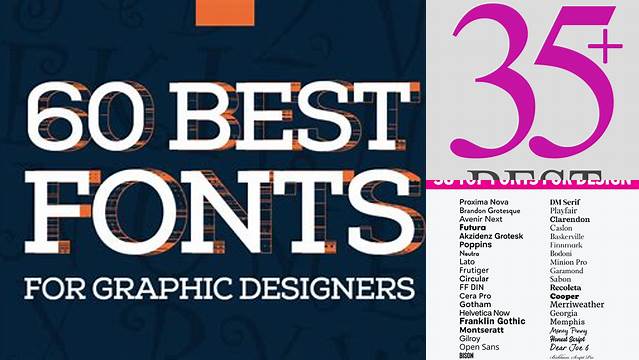
Best Fonts For Graphic Design: Free PDF Downloads
Finding the perfect font can make or break a design project. Luckily, there are tons of amazing fonts out there that you can download for free in PDF format. Let's dive into some of the best options for graphic design, covering various styles and uses. Whether you're a seasoned designer or just starting, this guide will help you find the perfect typeface to elevate your work. So, guys, let's get started and explore the world of free fonts!
1. Top Free Fonts for Graphic Design in 2024
Choosing the top free fonts for graphic design in 2024 involves considering current trends, versatility, and readability. Designers are always on the lookout for fonts that can make their projects stand out, and the good news is that there are plenty of excellent options available without spending a dime. Key considerations include the font's ability to work well in various contexts, from web design to print materials. A strong font should be legible in both headlines and body text, and it should also have a visual appeal that aligns with the project's overall aesthetic. In 2024, we see a mix of classic fonts that have stood the test of time and newer, more experimental typefaces gaining popularity. These fonts often include variable fonts that allow for dynamic adjustments in weight and width, providing greater flexibility for designers. Additionally, many designers are opting for fonts that support multiple languages, ensuring their designs can reach a global audience. The best free fonts for graphic design are those that not only look good but also enhance the user experience by being easily readable and visually engaging. So, if you're looking to elevate your designs this year, exploring these top free fonts is a great place to start. Remember, the right font can transform a good design into a great one, making your work more impactful and memorable.
2. Best Sans-Serif Fonts for Free
When it comes to graphic design, sans-serif fonts are a staple. Their clean, modern lines make them incredibly versatile and perfect for a wide range of projects. Finding the best sans-serif fonts for free can be a game-changer, especially if you're working on a budget. These fonts are known for their readability and are often used in body text, headlines, and UI design. One of the key advantages of sans-serif fonts is their ability to convey a sense of clarity and simplicity. This makes them ideal for projects where the message needs to be communicated quickly and efficiently. In the digital realm, sans-serif fonts shine on screens, offering excellent legibility even at smaller sizes. Many free sans-serif fonts come with a variety of weights and styles, giving designers the flexibility to create visually dynamic layouts. From the classic Helvetica alternatives to more contemporary designs, the options are plentiful. Exploring these free resources can lead to the discovery of unique and professional-looking fonts that can elevate any design project. So, if you're aiming for a clean, modern look, delving into the world of free sans-serif fonts is definitely worth your time. Remember, a well-chosen sans-serif font can bring a sense of sophistication and ease to your designs, making them more engaging and effective.
3. Popular Serif Fonts You Can Download for Free
Serif fonts, with their classic and elegant letterforms, bring a touch of tradition and sophistication to graphic design projects. If you're on the hunt for popular serif fonts you can download for free, you're in luck! There are numerous high-quality options available that can add a timeless feel to your work. Serif fonts are characterized by the small strokes or “serifs” at the end of each character, which can enhance readability, especially in print. These fonts are often used in books, newspapers, and magazines, but they also work wonderfully in branding and logo design. The key to choosing the right serif font is to consider the tone and message of your project. Some serif fonts have a more formal and traditional feel, while others offer a modern twist. Exploring the vast selection of free serif fonts allows designers to find the perfect match for their creative vision. Many free serif fonts come with multiple weights and styles, providing versatility for various design needs. From classic options like Times New Roman alternatives to more unique and decorative serifs, there's something for every project. So, if you're looking to infuse your designs with a touch of elegance and readability, diving into the world of free serif fonts is a fantastic idea. A well-chosen serif font can create a lasting impression, making your designs both beautiful and functional.
4. Script Fonts Available for Free
Script fonts add a personal and elegant touch to any design, mimicking the fluidity of handwriting. Finding the best script fonts available for free can bring a unique flair to your projects without breaking the bank. These fonts are perfect for invitations, greeting cards, logos, and any design where you want to convey a sense of warmth and personality. The variety of script fonts is vast, ranging from formal and calligraphic styles to more casual and playful options. The key to using script fonts effectively is to ensure they are legible and complement the overall design. Overusing script fonts can make a design look cluttered, so it's best to use them sparingly for headings or accents. When selecting a free script font, it’s essential to consider its readability and the mood it evokes. A formal script might be ideal for wedding invitations, while a more whimsical script could be perfect for a children's book. Many free script fonts come with decorative flourishes and swashes, adding to their unique charm. Exploring the diverse range of free script fonts can help designers find the perfect typeface to convey the desired emotion and style. So, if you’re looking to add a touch of elegance or personality to your designs, script fonts are a fantastic choice. Remember, the right script font can transform a design, making it feel more personal and inviting.
5. Display Fonts You Can Get Without Paying
Display fonts are designed to grab attention and make a statement. They are often used for headlines, posters, and branding materials where visual impact is crucial. Finding display fonts you can get without paying opens up a world of creative possibilities for designers on a budget. These fonts are typically more decorative and unique than body text fonts, making them perfect for adding personality and flair to your projects. The key to using display fonts effectively is to ensure they complement the overall design and message. A bold, eye-catching display font can draw readers in, but it's important to balance its impact with readability and clarity. Many free display fonts offer a wide range of styles, from vintage and retro designs to modern and futuristic typefaces. This variety allows designers to find the perfect font to match the tone and aesthetic of their project. When selecting a free display font, it’s essential to consider its legibility and how well it works with other design elements. A well-chosen display font can transform a design, making it more memorable and impactful. Exploring the vast selection of free display fonts can help designers discover hidden gems that add a unique touch to their work. So, if you're looking to make a bold statement, diving into the world of free display fonts is an excellent choice. Remember, a striking display font can be the key to creating visually compelling designs that capture attention.
6. Modern Fonts Available for Free Download
Modern fonts are characterized by their clean lines, geometric shapes, and contemporary feel. They are perfect for designs that aim to convey a sense of innovation and sophistication. Finding modern fonts available for free download is a fantastic way to keep your designs fresh and up-to-date without spending any money. These fonts often feature minimalist designs, making them highly versatile for a variety of projects, from web design to print materials. The key to using modern fonts effectively is to ensure they align with the overall aesthetic of your project. They work particularly well in designs that emphasize simplicity and clarity. Many free modern fonts offer a range of weights and styles, giving designers the flexibility to create visually dynamic layouts. From sleek sans-serifs to elegant serifs with a modern twist, there’s a diverse selection to choose from. When selecting a free modern font, it’s essential to consider its readability and how well it complements other design elements. A well-chosen modern font can elevate a design, making it feel more contemporary and polished. Exploring the vast array of free modern fonts can help designers find the perfect typeface to express their creative vision. So, if you're looking to infuse your designs with a modern edge, diving into the world of free modern fonts is an excellent choice. Remember, a stylish modern font can make your designs stand out and convey a sense of innovation.
7. Classic Fonts You Can Download in PDF Format
Classic fonts have stood the test of time, maintaining their relevance and appeal across decades. These fonts are known for their timeless elegance and readability, making them a staple in graphic design. The ability to download classic fonts in PDF format provides designers with easy access to these essential typefaces. These fonts are perfect for projects that require a touch of tradition and sophistication, such as books, formal documents, and branding materials. Classic fonts often feature a balanced and harmonious design, ensuring they are legible in various contexts. From the elegant serifs of Times New Roman and Garamond to the clean lines of Helvetica and Arial, these fonts offer versatility and reliability. The key to using classic fonts effectively is to choose the right one for the specific project. A formal serif font might be ideal for a book, while a clean sans-serif font could be perfect for a website. Many free classic fonts are available in multiple weights and styles, giving designers the flexibility to create visually dynamic layouts. When selecting a free classic font, it’s essential to consider its readability and how well it complements other design elements. A well-chosen classic font can enhance a design, giving it a sense of timeless elegance. So, if you're looking to add a touch of tradition to your projects, exploring the world of free classic fonts is an excellent choice. Remember, a timeless font can make your designs look professional and enduring.
8. Best Fonts for Logos Free Download
A logo is the cornerstone of a brand's identity, and the font you choose plays a crucial role in conveying the brand's message and personality. Finding the best fonts for logos free download is a key concern for designers and business owners alike. The ideal logo font should be memorable, legible, and versatile, working well across various media, from business cards to websites. When selecting a font for a logo, it’s essential to consider the brand's values and target audience. A modern, minimalist font might be perfect for a tech startup, while a classic serif font could be more suitable for a traditional business. Many free fonts are available that are well-suited for logo design, offering a range of styles, from bold and impactful to elegant and refined. The key to choosing the right font is to ensure it aligns with the brand's overall aesthetic and message. A well-designed logo font can make a brand instantly recognizable and memorable. Exploring the vast selection of free fonts can help designers find the perfect typeface to represent their client's brand. So, if you're working on a logo design, diving into the world of free fonts is an excellent choice. Remember, the right font can transform a logo, making it more impactful and memorable.
9. Free Fonts for Websites
Choosing the right font for a website is crucial for creating a positive user experience. The font should be legible, visually appealing, and consistent with the website's overall design. Finding free fonts for websites can be a cost-effective way to enhance your site’s aesthetic without breaking the bank. Website fonts need to be optimized for on-screen reading, which means they should be clear and easy to read even at smaller sizes. Sans-serif fonts are often a popular choice for body text on websites due to their clean and modern appearance. However, serif fonts can also work well, especially for headings and titles. The key to selecting a free font for your website is to ensure it aligns with your brand's identity and enhances the user experience. Many free fonts are available that are specifically designed for web use, offering excellent readability and a variety of styles. Exploring these options can help you find the perfect font to complement your website’s design. A well-chosen font can improve readability, enhance visual appeal, and reinforce your brand’s message. So, if you’re looking to refresh your website’s typography, diving into the world of free fonts is an excellent choice. Remember, the right font can make your website more engaging and user-friendly.
10. Best Free Fonts for Resumes
A resume is often the first impression you make on a potential employer, and the font you choose can significantly impact how your resume is perceived. The best free fonts for resumes are those that are professional, legible, and easy on the eyes. A well-chosen font can convey professionalism and attention to detail, while a poorly chosen font can make your resume look sloppy and unreadable. When selecting a font for your resume, it’s essential to opt for clarity and simplicity. Classic fonts like Arial, Calibri, and Times New Roman are always a safe bet, but there are many other free fonts that also work well. Sans-serif fonts are generally preferred for resumes due to their clean and modern appearance, but some serif fonts can also be appropriate. The key is to ensure the font is easy to read in both print and digital formats. Many free fonts offer a professional and polished look, making them ideal for resumes. Exploring these options can help you find the perfect font to highlight your qualifications and make a positive impression. A well-formatted resume with a legible font can significantly increase your chances of landing an interview. So, if you're updating your resume, diving into the world of free fonts is an excellent choice. Remember, the right font can help you stand out and present yourself in the best possible light.
11. Free Fonts for Posters and Flyers
Posters and flyers are designed to grab attention, and the font you choose plays a crucial role in achieving this goal. Finding free fonts for posters and flyers is essential for creating impactful promotional materials without exceeding your budget. The ideal font for posters and flyers should be eye-catching, legible, and consistent with the message you want to convey. When selecting a font for your posters and flyers, it’s important to consider the overall design and the target audience. Bold and impactful fonts are often preferred for headlines, while more legible fonts are suitable for body text. Many free fonts are available that are perfect for posters and flyers, offering a range of styles from modern and edgy to classic and elegant. The key is to choose a font that enhances the visual appeal of your design and effectively communicates your message. Exploring the vast selection of free fonts can help you find the perfect typeface to make your posters and flyers stand out. A well-chosen font can make your promotional materials more engaging and memorable. So, if you’re designing posters or flyers, diving into the world of free fonts is an excellent choice. Remember, the right font can help you capture attention and deliver your message effectively.
12. Typography Tips for Graphic Design
Typography is a critical aspect of graphic design, influencing how a message is perceived and understood. Mastering typography can significantly enhance the visual appeal and effectiveness of your designs. Some essential typography tips for graphic design include choosing the right font, understanding font pairings, and paying attention to spacing and alignment. Selecting the appropriate font for your project is crucial. Consider the tone and message you want to convey and choose a font that aligns with it. Font pairings involve combining different fonts that complement each other, creating a harmonious and visually appealing design. Spacing and alignment, including kerning, leading, and tracking, are essential for readability and visual balance. Kerning refers to the space between individual letters, leading is the space between lines of text, and tracking is the overall spacing between characters. Proper alignment ensures that text is organized and easy to read. Other typography tips include using hierarchy to guide the reader's eye, avoiding excessive font styles, and ensuring consistency throughout your design. By following these typography tips, you can create visually compelling and effective designs. Remember, typography is not just about aesthetics; it's about communication. So, take the time to learn and apply these principles to elevate your graphic design work.
13. Where to Download Fonts Legally for Free
Downloading fonts legally is crucial for avoiding copyright issues and ensuring you have the rights to use the fonts in your projects. Knowing where to download fonts legally for free can save you time and money while providing access to a vast library of typefaces. Several reputable websites offer free fonts for personal and commercial use, including Google Fonts, Font Squirrel, and DaFont (with careful attention to licensing). Google Fonts is a popular choice, offering a wide range of open-source fonts that are optimized for web use. Font Squirrel provides high-quality free fonts that are suitable for various design projects. DaFont has a large selection of fonts, but it’s essential to review the license agreements for each font, as some are only free for personal use. When downloading fonts, always check the license agreement to ensure you understand how you can use the font. Some fonts may require attribution, while others may have restrictions on commercial use. By downloading fonts from reputable sources and adhering to the licensing terms, you can legally use free fonts in your designs without any legal concerns. Remember, respecting font creators and their licenses is essential for maintaining a fair and creative design community. So, explore these resources and enjoy the vast world of free fonts while ensuring you’re doing it legally.
14. Understanding Font Licensing for Free Fonts
Understanding font licensing is crucial when using free fonts to ensure you comply with the terms set by the font creators. Font licenses dictate how you can use a font, including whether it's for personal or commercial projects. For free fonts, the licensing terms can vary significantly, so it’s essential to review the specific license agreement for each font you download. Some free fonts are licensed for both personal and commercial use, allowing you to use them in a wide range of projects without any restrictions. Others may have limitations, such as requiring attribution or prohibiting use in certain types of projects. Common types of font licenses include Open Font License (OFL), which allows for free use, modification, and distribution, and other custom licenses that may have specific restrictions. When downloading a free font, always look for the license information, which is typically included in a text file within the font package or on the website where you downloaded the font. Read the license agreement carefully to understand what you are permitted to do with the font. If you’re unsure about the terms of a license, it’s always best to seek clarification from the font creator or consult a legal professional. By understanding font licensing, you can avoid copyright issues and use free fonts with confidence, knowing you are respecting the rights of the font creators. Remember, adhering to font licenses is essential for maintaining a fair and creative design community.
15. How to Install Fonts on Windows and Mac
Knowing how to install fonts on Windows and Mac is a fundamental skill for any designer or anyone who uses custom fonts. The installation process is straightforward, but it varies slightly between the two operating systems. On Windows, you can install fonts by right-clicking the font file (usually a .ttf or .otf file) and selecting “Install.” Alternatively, you can copy the font files into the Fonts folder located in the Windows directory (C:\Windows\Fonts). For multiple fonts, you can select all the font files, right-click, and choose “Install” to install them in one go. On a Mac, you can install fonts by double-clicking the font file, which will open the Font Book application. In Font Book, click “Install Font” to add the font to your system. Another method is to drag the font files into the Fonts folder in the Library directory (either the user Library or the system Library). To access the user Library, hold down the Option key and click the Go menu in the Finder, then select Library. For the system Library, navigate to /Library/Fonts. After installing a font, it should be available in your applications. If you don’t see the font, try restarting the application or your computer. By following these simple steps, you can easily install fonts on both Windows and Mac, allowing you to use a wide variety of typefaces in your design projects. Remember, properly installed fonts will enhance your creative options and ensure consistency across your designs.
16. Best Font Pairing Practices for Graphic Design
Font pairing is the art of combining different typefaces in a way that is visually harmonious and effective. The best font pairing practices for graphic design involve selecting fonts that complement each other, enhancing readability and visual appeal. A well-chosen font pairing can elevate a design, creating a polished and professional look. One common practice is to pair a serif font with a sans-serif font. This combination often provides a good balance, with the serif font adding a touch of tradition and the sans-serif font providing a modern contrast. Another tip is to choose fonts with distinct personalities that still work well together. Avoid pairing fonts that are too similar, as this can create a dull and uninspired design. Instead, look for fonts with contrasting weights, styles, or proportions. Using a font pairing tool or resource can be helpful in discovering effective combinations. Many websites and articles offer suggestions for successful font pairings, providing a starting point for your own experimentation. When pairing fonts, consider the context of your design. A pairing that works well for a website might not be suitable for a print document. Consistency is also key. Once you’ve chosen a font pairing, stick with it throughout your design to maintain a cohesive look. By following these best practices, you can create visually compelling and harmonious designs using effective font pairings. Remember, font pairing is both an art and a science, so experiment and find what works best for your specific project.
17. Tools for Identifying Fonts You Like
Identifying a font you like is the first step in using it for your design projects. Fortunately, there are several tools for identifying fonts you like, making it easier to find the perfect typeface for your needs. One popular tool is WhatTheFont by MyFonts, which allows you to upload an image of text and identifies the fonts used in the image. It works by analyzing the letterforms and comparing them to its extensive database of fonts. Another useful tool is Font Matcherator, which is a browser extension that helps you identify fonts on any webpage. Simply right-click on the text you want to identify, and Font Matcherator will provide a list of possible matches. Adobe Photoshop also has a font-matching feature called Match Font, which allows you to identify fonts in images and find similar fonts available on Adobe Fonts. Online font recognition services like Font Identifier and What Font Is are also valuable resources. These tools work by analyzing uploaded images or URLs and providing potential font matches. In addition to these tools, you can also use font communities and forums, where designers often share their font discoveries and recommendations. By using these tools and resources, you can easily identify fonts you like and incorporate them into your design projects. Remember, finding the right font is crucial for creating visually compelling and effective designs, so take advantage of these helpful resources.
18. Creating Font Combinations for Impact
Creating impactful designs often involves using font combinations that enhance readability and visual appeal. Creating font combinations for impact requires a strategic approach, considering the personality of each font and how they work together. A successful font combination can elevate a design, making it more engaging and memorable. One effective strategy is to pair a display font with a body text font. Display fonts are typically more decorative and eye-catching, making them perfect for headlines and titles. Body text fonts, on the other hand, should be highly legible and suitable for long passages of text. Another approach is to combine fonts from different font families, such as a serif font with a sans-serif font. This creates a visual contrast that can add interest to your design. However, it’s essential to ensure that the fonts complement each other and don’t clash. Using a font pairing tool or resource can be helpful in discovering effective combinations. Many websites and articles offer suggestions for successful font pairings, providing a starting point for your own experimentation. When creating font combinations, consider the context of your design and the message you want to convey. A combination that works well for a modern website might not be suitable for a formal print document. Consistency is also key. Once you’ve chosen a font combination, stick with it throughout your design to maintain a cohesive look. By following these guidelines, you can create impactful font combinations that enhance your designs. Remember, the right font combination can make your design more visually appealing and effective in communicating your message.
19. Designing with Variable Fonts
Variable fonts are a relatively new font technology that offers designers a high degree of flexibility and control over typography. Designing with variable fonts allows you to adjust various font characteristics, such as weight, width, and slant, along a continuous range rather than being limited to predefined styles. This flexibility can significantly enhance your design capabilities, enabling you to create more nuanced and dynamic typography. Variable fonts work by storing multiple font styles within a single font file, making them more efficient than traditional font formats. This can improve website loading times and reduce file sizes, especially when using multiple font styles. When designing with variable fonts, you can adjust the font’s appearance to perfectly match your design needs. For example, you can fine-tune the weight of a font to improve readability or create a specific visual effect. Variable fonts also allow you to create unique typographic hierarchies and add subtle variations to your text. Many design software programs, such as Adobe Photoshop and Illustrator, support variable fonts, making it easy to incorporate them into your workflow. Exploring the possibilities of variable fonts can open up new creative avenues and help you create more compelling designs. Remember, variable fonts offer a powerful way to customize typography and enhance the visual impact of your projects.
20. Free Google Fonts for Graphic Designers
Google Fonts is a popular resource for graphic designers, offering a vast library of free, open-source fonts that are optimized for web use. Using free Google Fonts for graphic designers is a cost-effective way to access high-quality typefaces for various design projects. Google Fonts provides a wide range of font styles, including sans-serif, serif, display, and handwriting fonts, making it easy to find the perfect typeface for your needs. One of the main advantages of Google Fonts is its ease of use. You can easily browse the font library, preview fonts, and download them for use in your design software. Google Fonts also offers a web font service, allowing you to embed fonts directly into your website with just a few lines of code. This ensures that your website’s typography looks consistent across different browsers and devices. Google Fonts are licensed under the Open Font License (OFL), which means they are free to use for both personal and commercial projects. This makes them a great choice for designers working on a budget. Some popular Google Fonts for graphic design include Roboto, Open Sans, Lato, Montserrat, and Raleway. These fonts are versatile, legible, and widely used in various design contexts. By using free Google Fonts, you can enhance your designs with high-quality typography without incurring any costs. Remember, Google Fonts offers a wealth of options for graphic designers, making it an invaluable resource for your creative projects.
21. Best Font Resources Online
Finding the best fonts for your design projects requires exploring various resources and platforms. The best font resources online offer a wide selection of typefaces, from free options to premium fonts, catering to different design needs and budgets. Google Fonts is a top resource for free, open-source fonts, providing a vast library of web-optimized typefaces that are easy to use. Font Squirrel is another excellent resource for free fonts, offering high-quality typefaces that are suitable for commercial use. DaFont is a popular website with a large collection of free fonts, but it’s essential to check the license agreements for each font, as some are only free for personal use. Adobe Fonts is a subscription-based service that provides access to thousands of fonts, seamlessly integrated with Adobe Creative Cloud applications. MyFonts is a leading online font marketplace, offering a wide range of fonts from various foundries and designers. Creative Market is another popular platform where you can purchase fonts, graphics, and other design assets. These resources provide access to both free and premium fonts, allowing you to find the perfect typefaces for your projects. Other notable font resources include HypeForType, Lost Type Co-op, and The League of Movable Type. By exploring these font resources online, you can discover a wealth of typefaces to enhance your design work. Remember, having access to a diverse range of fonts is crucial for creating visually compelling and effective designs.
22. How to Choose the Right Font for Your Brand
Choosing the right font for your brand is a crucial step in establishing a strong and consistent brand identity. The font you choose can significantly impact how your brand is perceived, conveying personality, values, and professionalism. Knowing how to choose the right font for your brand involves considering several factors, including your brand’s personality, target audience, and industry. Start by defining your brand’s personality. Is it modern and innovative, or traditional and classic? The font should reflect this personality. For example, a modern brand might opt for a clean sans-serif font, while a traditional brand might choose an elegant serif font. Consider your target audience. The font should resonate with your audience and be easy for them to read. If your audience is tech-savvy, a modern font might be appropriate, while a more conservative audience might prefer a classic font. Look at your industry. Certain industries tend to use specific types of fonts. For example, the legal industry often uses traditional serif fonts, while the tech industry frequently uses modern sans-serif fonts. Test your font choices. Use the font in various applications, such as your logo, website, and marketing materials, to see how it looks and feels. Get feedback from others. Ask colleagues, clients, or potential customers for their opinions on your font choices. Ensure consistency. Once you’ve chosen a font, use it consistently across all your brand materials to create a cohesive brand identity. By following these steps, you can choose the right font for your brand, enhancing its visual identity and communication. Remember, the right font can make your brand more recognizable and memorable.
23. Free Fonts for Commercial Use
Using fonts for commercial projects requires ensuring that you have the appropriate license to do so. Finding free fonts for commercial use is essential for designers and businesses working on a budget. Commercial use fonts can be used in projects that generate revenue, such as logos, websites, marketing materials, and products for sale. Several reputable websites offer free fonts for commercial use, including Google Fonts, Font Squirrel, and The League of Movable Type. Google Fonts provides a vast library of open-source fonts that are licensed under the Open Font License (OFL), allowing for free use in both personal and commercial projects. Font Squirrel offers high-quality free fonts that are suitable for commercial use, with clear licensing terms. The League of Movable Type is a website dedicated to providing free, high-quality fonts that are also licensed for commercial use. When downloading a font for commercial use, it’s crucial to review the license agreement to understand what you are permitted to do with the font. The license will specify whether you can use the font in commercial projects, modify the font, and distribute the font. Always keep a copy of the license agreement for your records. If you’re unsure about the terms of a license, it’s best to seek clarification from the font creator or consult a legal professional. By using free fonts for commercial use and adhering to the licensing terms, you can create professional designs without incurring any costs. Remember, respecting font licenses is essential for maintaining a fair and creative design community.
24. Best Free Calligraphy Fonts
Calligraphy fonts add an elegant and personal touch to designs, mimicking the beauty of handwriting. Finding the best free calligraphy fonts can enhance your projects without breaking the bank. Calligraphy fonts are perfect for invitations, greeting cards, logos, and other designs where you want to convey a sense of warmth and sophistication. Several websites offer free calligraphy fonts, but it’s essential to check the license agreements to ensure they are suitable for your intended use. DaFont has a wide selection of calligraphy fonts, but some are only free for personal use, so be sure to review the license for each font. Font Squirrel offers high-quality free fonts, including calligraphy fonts, that are often licensed for commercial use. Google Fonts provides a few elegant script and calligraphy-inspired fonts that are free for both personal and commercial use. When selecting a free calligraphy font, consider the overall tone and message of your project. A formal script might be ideal for wedding invitations, while a more whimsical script could be perfect for a children's book. Ensure that the font is legible and complements the other design elements. Test the font in different sizes and contexts to ensure it looks good in various applications. By exploring the available free calligraphy fonts, you can find the perfect typeface to add a touch of elegance and personality to your designs. Remember, the right calligraphy font can transform a design, making it feel more personal and inviting.
25. Fonts for Print vs. Digital Design
Choosing the right font depends on whether your design is intended for print or digital media. Fonts for print vs. digital design require different considerations due to the varying display characteristics of these mediums. Print fonts need to be highly legible and maintain their clarity when printed on paper. Serif fonts are often preferred for print materials, such as books and magazines, due to their readability in long passages of text. Digital fonts, on the other hand, need to be optimized for on-screen reading. Sans-serif fonts are generally favored for digital design, particularly for body text on websites and mobile apps, as they appear cleaner and more legible on screens. However, serif fonts can also work well for headings and titles in digital designs. When choosing fonts for print, consider the printing method and paper quality. Some fonts may not reproduce well with certain printing techniques or on certain types of paper. For digital design, ensure that the font is optimized for web use, with appropriate file formats and kerning for on-screen display. Test your font choices in both print and digital formats to ensure they look good in both mediums. Consider the context and target audience of your design. A font that works well for a print brochure might not be suitable for a mobile app. By understanding the differences between fonts for print and digital design, you can make informed choices and create visually effective designs for both mediums. Remember, selecting the right font is crucial for ensuring that your message is conveyed clearly and effectively.
26. How to Test Font Readability
Ensuring font readability is essential for effective communication in any design project. Knowing how to test font readability can help you select the best typefaces for your specific needs. Readability refers to how easily and comfortably a font can be read, particularly in long passages of text. Several factors influence font readability, including font size, letter spacing, line height, and contrast. Start by considering the font size. A font that is too small can be difficult to read, while a font that is too large can be overwhelming. Choose a font size that is appropriate for the context and target audience. Letter spacing, also known as tracking, affects the overall density of the text. Too little spacing can make the letters run together, while too much spacing can make the text look disjointed. Line height, or leading, is the vertical space between lines of text. Adequate line height improves readability by providing visual breathing room between lines. Contrast between the text and background is crucial for readability. Ensure that there is sufficient contrast to make the text stand out clearly. Use readability testing tools and websites to assess the readability of your font choices. These tools can analyze your text and provide readability scores and recommendations. Test your font choices with your target audience. Ask people to read samples of your text and provide feedback on its readability. Consider the context of your design. A font that is readable in a print document might not be as readable on a website or mobile app. By following these steps, you can effectively test font readability and choose typefaces that ensure your message is communicated clearly and comfortably. Remember, readability is a key factor in the success of any design project.
27. Fonts for a Professional Look
Choosing the right font is crucial for conveying a professional image in your designs. Fonts for a professional look typically exhibit clarity, legibility, and a sense of sophistication. These fonts are suitable for business documents, resumes, websites, and marketing materials where professionalism is paramount. Classic serif fonts like Times New Roman, Garamond, and Georgia are often considered professional choices due to their timeless elegance and readability. These fonts convey a sense of tradition and authority, making them ideal for formal documents and corporate communications. Sans-serif fonts, such as Arial, Calibri, and Helvetica, also offer a professional look with their clean and modern lines. These fonts are highly legible and work well in both print and digital formats, making them versatile choices for various applications. When selecting a font for a professional look, consider the overall tone and message of your brand. The font should align with your brand’s personality and values. Avoid using overly decorative or whimsical fonts, as these can detract from the professional image. Pay attention to font size, letter spacing, and line height to ensure readability. A well-chosen font can enhance the credibility and impact of your designs. Test your font choices in different contexts to ensure they maintain a professional appearance across various media. By selecting fonts that convey professionalism, you can create designs that project a polished and credible image. Remember, the right font can make a significant difference in how your brand is perceived.
28. Free Fonts Similar to Popular Paid Fonts
Accessing high-quality fonts doesn't always require a budget. There are numerous free fonts similar to popular paid fonts that can provide a comparable aesthetic without the cost. These free alternatives allow designers to achieve a professional look while adhering to budget constraints. For example, Google Fonts offers several free alternatives to popular paid fonts. Open Sans is a versatile sans-serif font that is often compared to Helvetica, while Roboto is a popular alternative to Frutiger. Lato is another excellent sans-serif option that is similar to Proxima Nova. For serif fonts, Lora is a free alternative to popular options like Garamond, and Merriweather offers a similar feel to Times New Roman. Font Squirrel is another valuable resource for finding free fonts that resemble paid typefaces. The website curates a selection of high-quality free fonts, many of which are inspired by popular commercial fonts. When searching for free alternatives, it’s essential to compare the fonts carefully to ensure they meet your design needs. Consider factors such as legibility, weight variations, and overall aesthetic. Test the free fonts in your designs to see how they perform in different contexts. By exploring free alternatives to popular paid fonts, you can access a wide range of typefaces without incurring any costs. Remember, there are many excellent free fonts available that can help you achieve a professional and visually appealing design.
29. Common Mistakes to Avoid When Choosing Fonts
Choosing the right font can significantly impact the success of a design, but several common mistakes can undermine your efforts. Knowing the common mistakes to avoid when choosing fonts can help you make informed decisions and create more effective designs. One frequent mistake is using too many fonts in a single design. Limiting your font selection to two or three typefaces can create a more cohesive and professional look. Overusing decorative or script fonts is another common error. These fonts can be visually appealing but are often difficult to read in large blocks of text. Save decorative fonts for headings and accents, and use more legible fonts for body text. Ignoring font licensing is a significant mistake that can lead to legal issues. Always check the license agreement for each font to ensure you are permitted to use it in your intended way. Failing to consider font readability is another common error. Choose fonts that are easy to read in both print and digital formats, and pay attention to font size, letter spacing, and line height. Not testing font combinations can result in a visually jarring design. Ensure that the fonts you choose complement each other and create a harmonious overall look. Neglecting the context of your design is also a mistake. The font should align with the tone, message, and target audience of your project. By avoiding these common font selection mistakes, you can create more effective and visually appealing designs. Remember, careful font selection is a crucial aspect of successful graphic design.
30. The Future of Typography in Graphic Design
The field of typography is constantly evolving, driven by technological advancements and changing design trends. The future of typography in graphic design promises exciting innovations and new possibilities for creative expression. Variable fonts are already making a significant impact, offering designers unprecedented flexibility and control over typefaces. This trend is likely to continue, with more variable fonts becoming available and more design software programs supporting this technology. Artificial intelligence (AI) is also poised to play a larger role in typography. AI-powered tools can help designers select fonts, create font pairings, and even generate custom typefaces. The use of 3D typography is expected to grow, adding depth and dimension to designs. This trend is particularly relevant in digital media, where 3D elements can create a more immersive and engaging experience. Interactive typography is another emerging trend, allowing designers to create typefaces that respond to user interactions. This can add a dynamic and playful element to designs. The focus on accessibility in typography is likely to increase, with designers paying greater attention to the needs of users with visual impairments. This includes choosing fonts with high legibility and ensuring sufficient contrast between text and background. As technology continues to evolve, the future of typography in graphic design will be shaped by new tools, trends, and a growing emphasis on creativity and accessibility. Remember, staying informed about these developments can help you leverage the power of typography to create innovative and impactful designs.